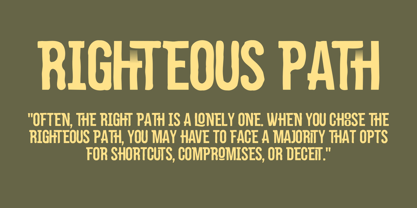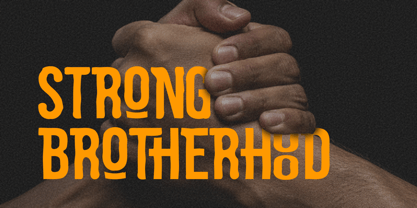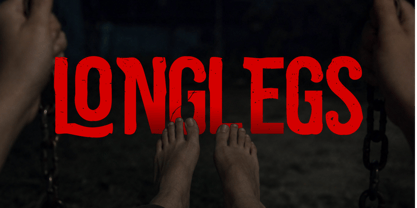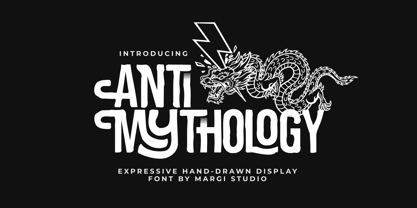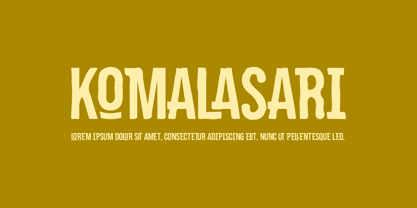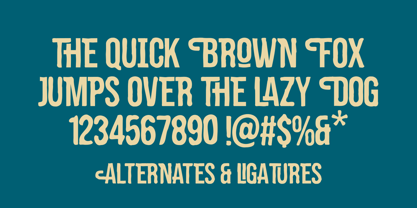
Antimythology
by Margi Studio
The Antimythology Font Family was designed by Muhammad Amal and published by Margi Studio. Antimythology contains 1 styles. More about this family
Anti Mythology - Expressive Hand-Drawn Display Font
Description: Introducing Anti Mythology, an expressive, solid hand-drawn display typeface crafted by Margi Studio. Featuring tall, condensed letterforms with clean edges, this font maintains a highly organic and unpredictable hand-lettered flow without relying on built-in textures.
Anti Mythology thrives on its dynamic stroke variations and quirky, custom-made feel. Its solid vectors make it incredibly clean for cutting and scaling, while its erratic shapes give it a bold, unmistakable personality. As seen in our previews, it is highly adaptable—perfect for creating tension in a dark cinematic thriller poster, projecting strength in masculine branding, or delivering a striking statement in urban apparel. The unique letter variations (such as the distinctive 'O') ensure your typography looks genuinely hand-crafted.
Perfectly Suited For:
Movie Posters, Book Titles, and Cinematic Typography
Streetwear, Urban Apparel, and Merchandise
Bold Branding, Logo Design, and Badges
Editorial Design and Striking Quotes
Features Included:
Uppercase
Numerals & Punctuation
Stylistic Alternates & Ligatures
Designers: Muhammad Amal
Foundry: Margi Studio